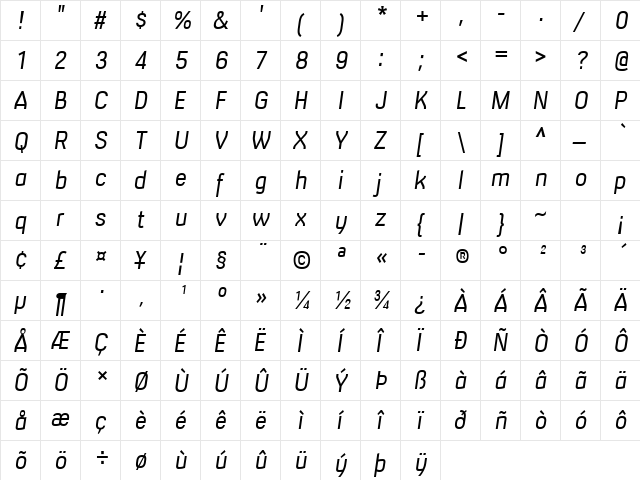
Milibus Lt Italic
Italic · Ray Larabie Ray Larabie ·
DesignerRay Larabie
Design Context for Milibus Lt Typeface
Milibus Lt takes a measured approach to typography — its balanced proportions and neutral character make it a reliable workhorse for both digital and print work. Its italic angle brings a sense of urgency and motion to the letterforms. Its slender proportions lend an understated elegance to any composition.
Pro Tip: Use Milibus Lt for emphasis, pull quotes, and subheadings where its slanted energy can add rhythm to the layout.